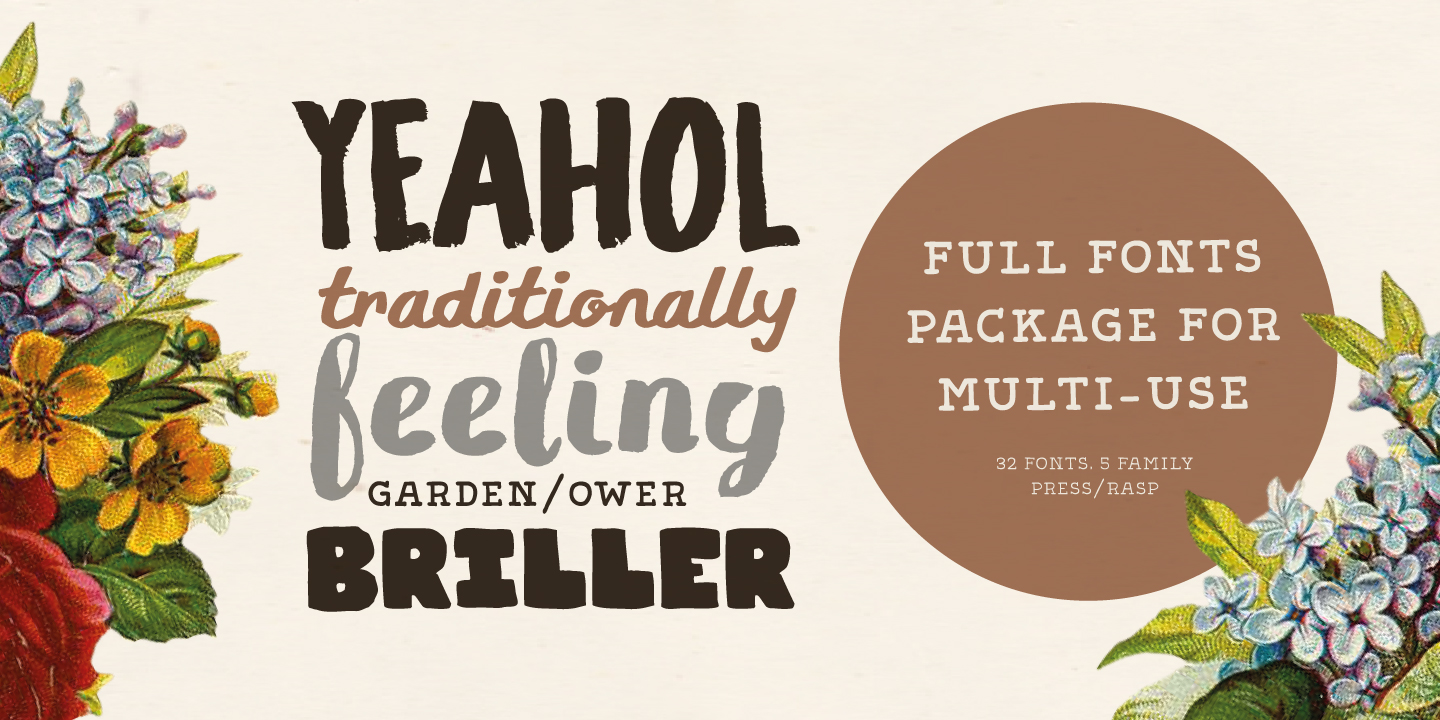
Gliny Hand Slab 300 Italic
Gliny was created by mixing different styles of handwriting fonts that derived from various tools such as pen, markers, drafting pens, painting brushes, writing brush and etc. In order to develop a new and diverse font styles. We also keep incomplete details and uneven textures that resulted from a writing process. We provide various font styles to help you mix and match them to suit your creative work harmoniously. Gliny comes with different font families such as brush, slab serif, heavy, handmade script for making your amazing work !!